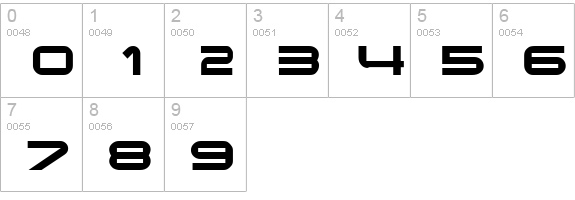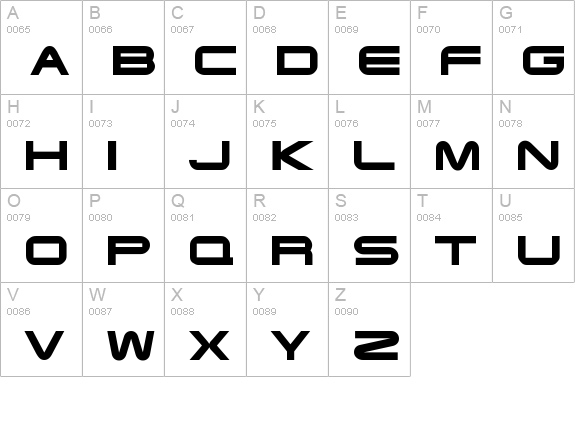
Jeepjeep Font Details
Introducing Jeepjeep font - a sleek and modern typeface that exudes creativity and energy. With its clean lines and bold strokes, Jeepjeep is perfect for various design projects, from branding to editorial design. This versatile font is sure to make your work stand out and leave a lasting impression. Best of all, Jeepjeep font is available for free download at FontsMarket.com. Simply visit the website and start using this stylish typeface in your projects today. Don't miss out on the opportunity to elevate your designs with the unique charm of Jeepjeep font.